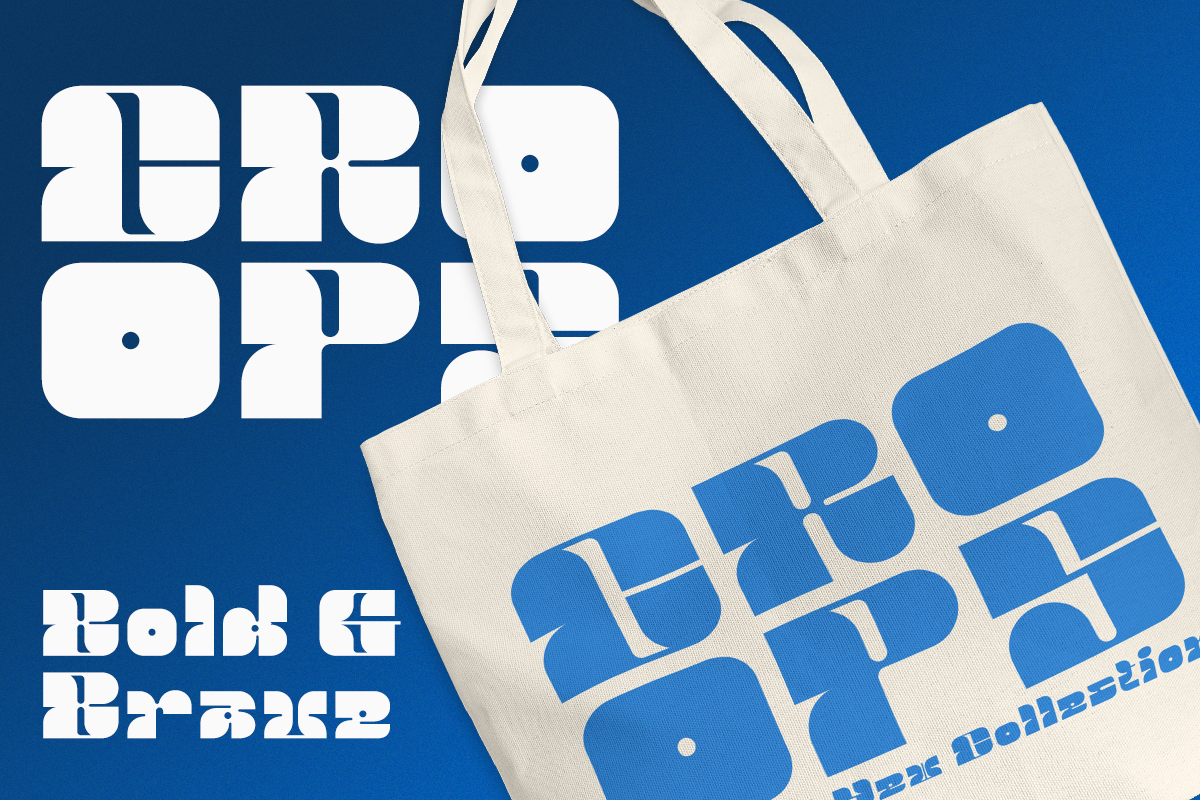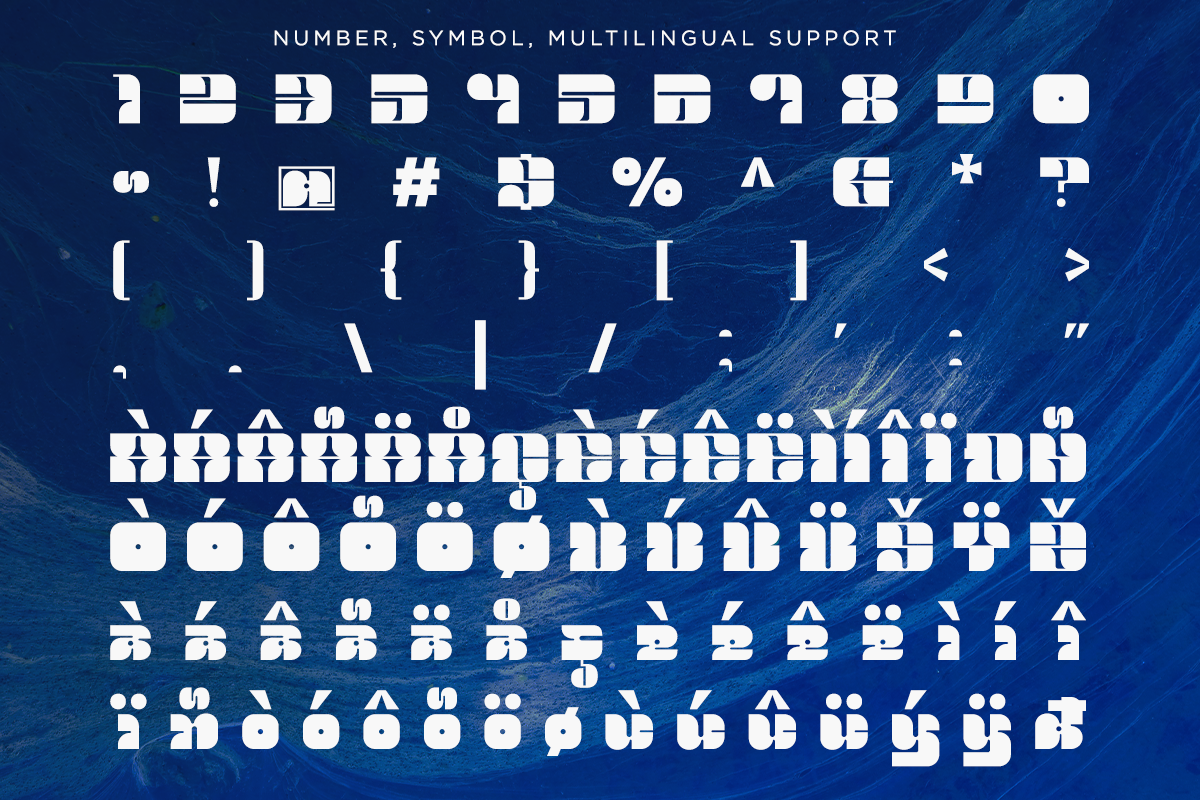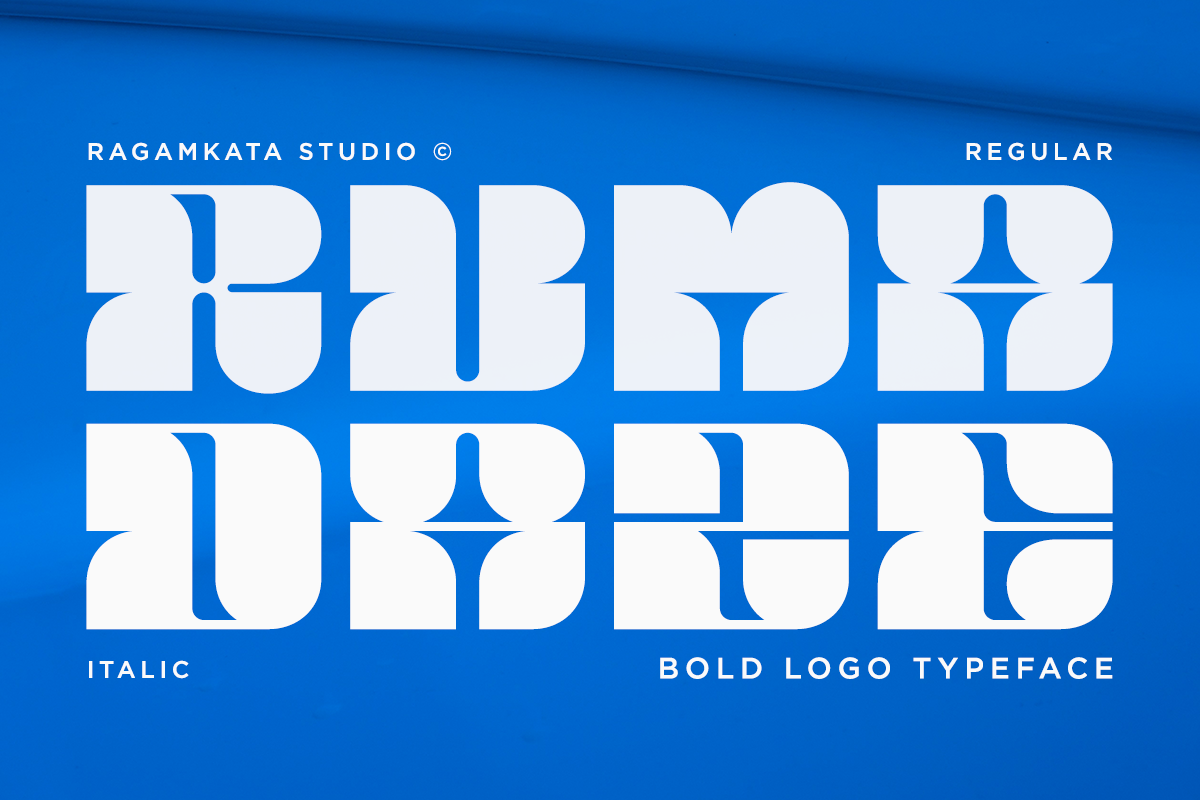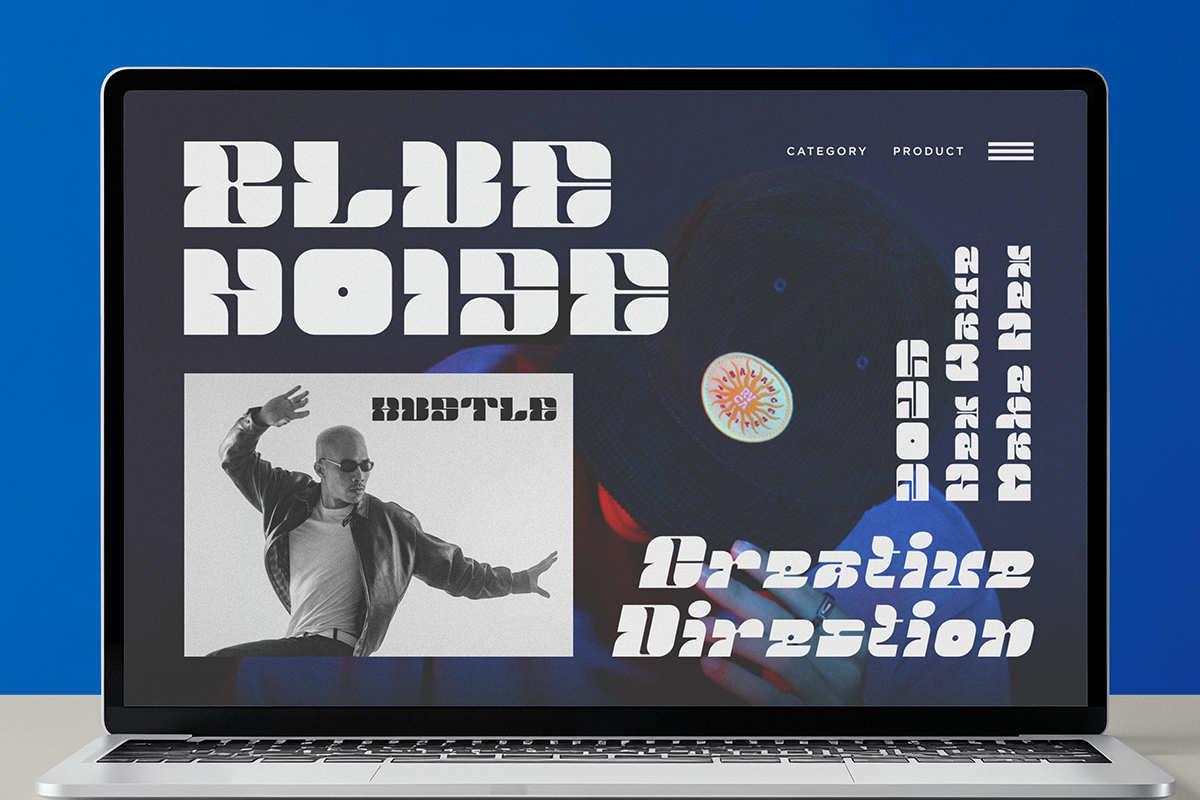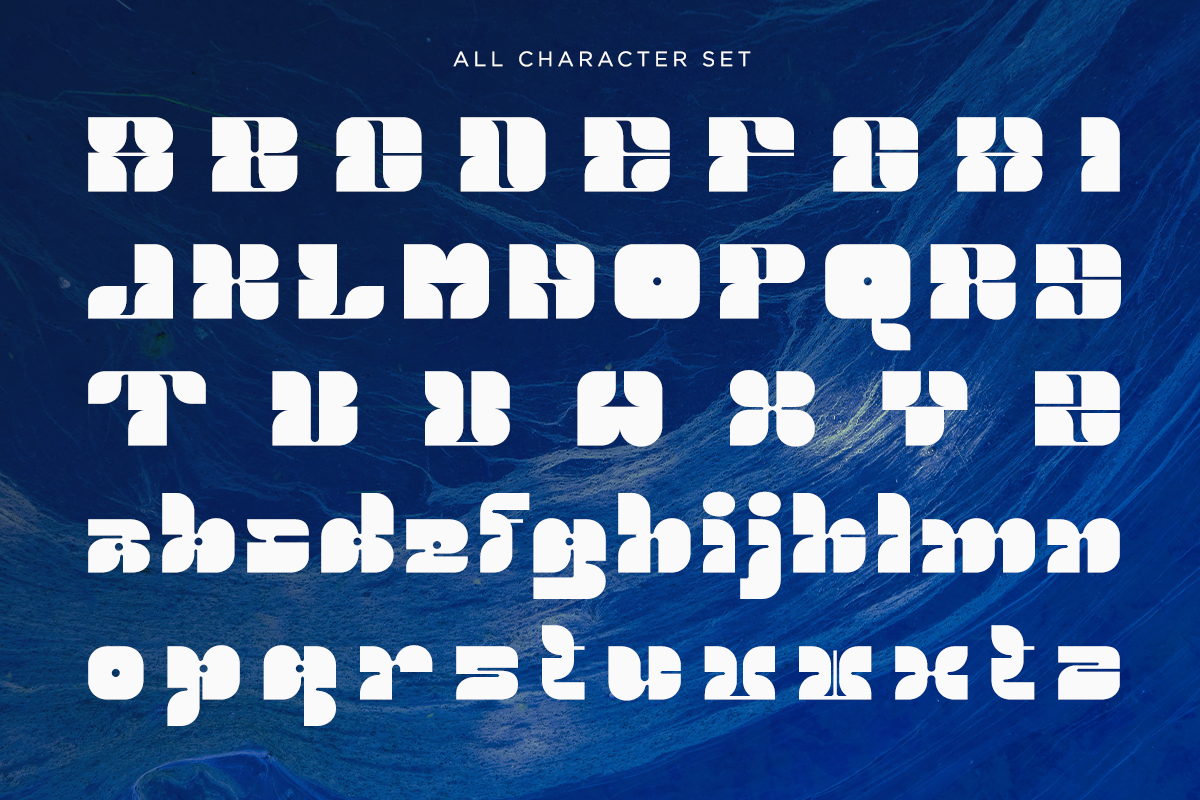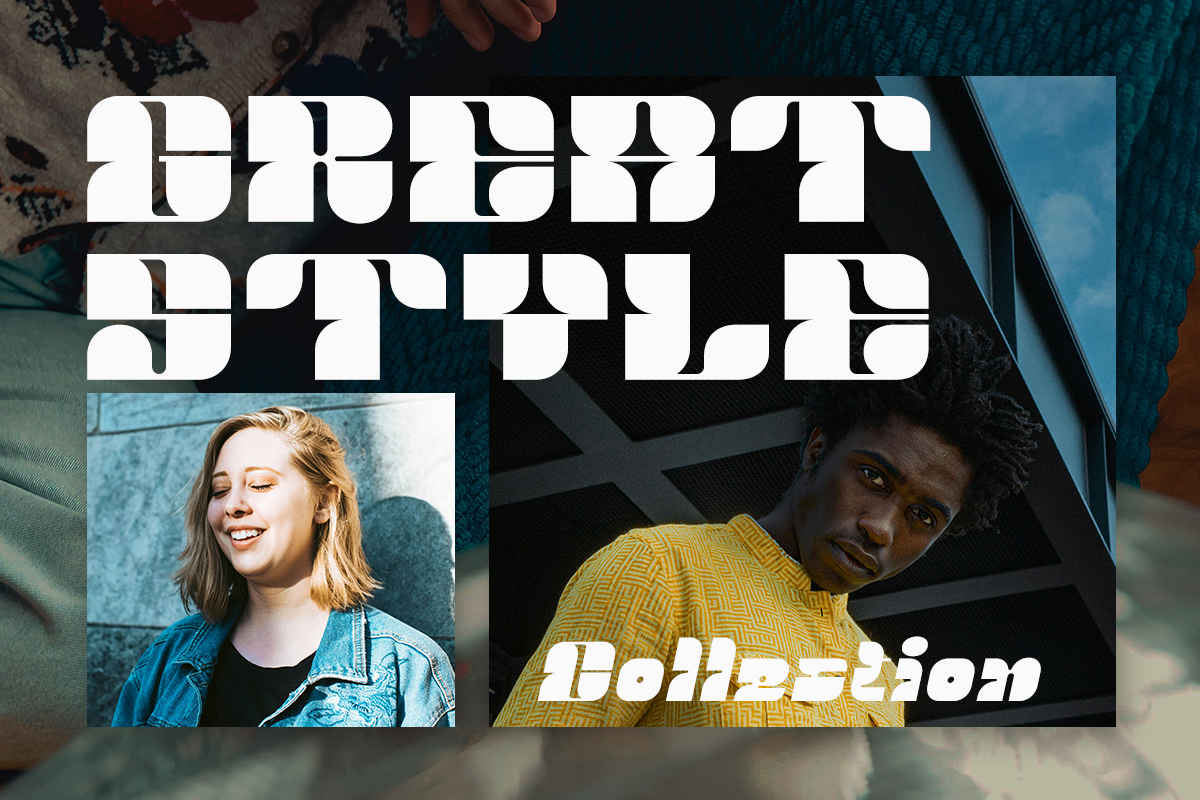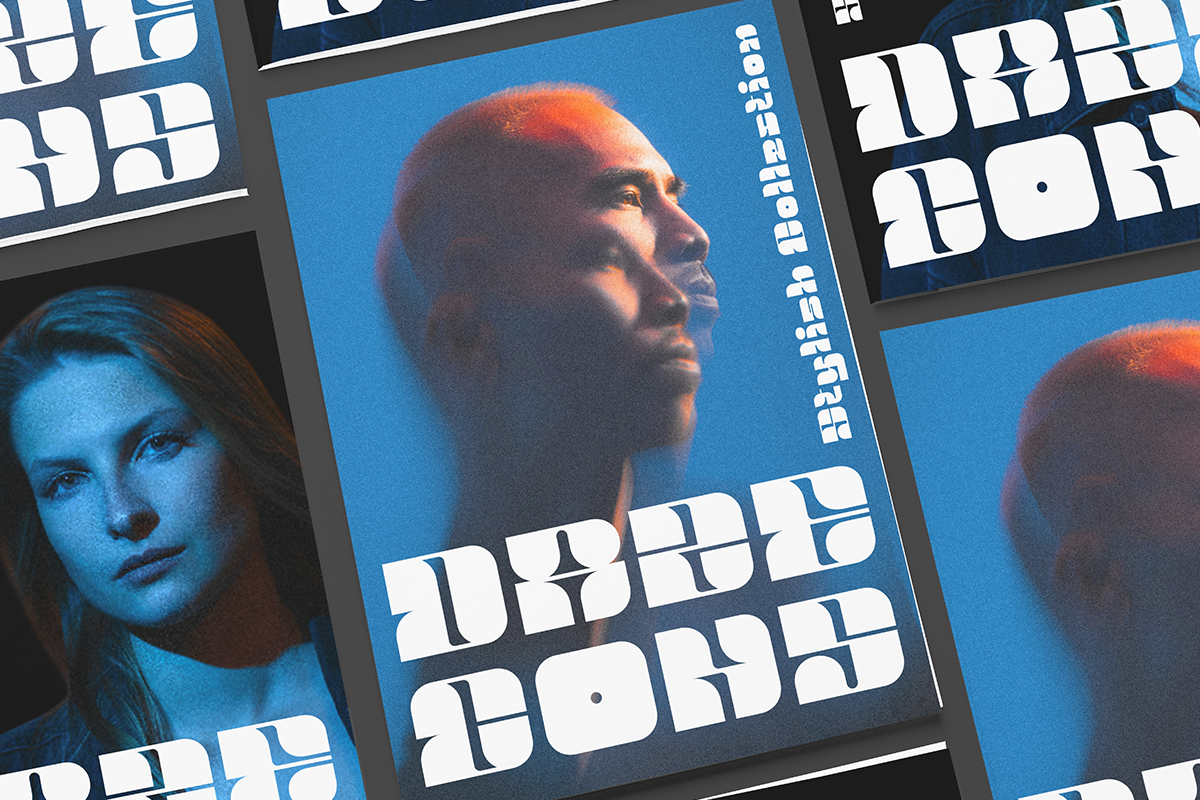
Ruma Daze - Bold Logo Typeface
Ruma Daze is a bold logo typeface built with strong geometric shapes and distinctive letter construction. Its heavy forms, smooth curves, and balanced proportions give the font a powerful, modern presence that instantly grabs attention. Perfect For logos, brand identities, headlines, posters, signage, packaging design, editorial titles, social media graphics, web banners, advertising, modern branding, Etc
- Stylish Ligature Set
- Number, and Symbol